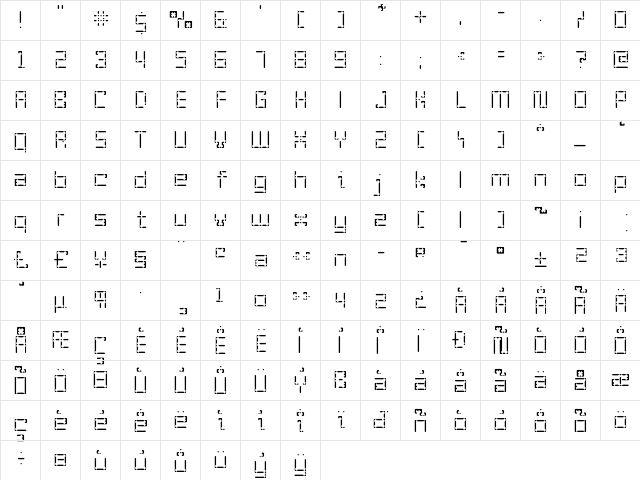
Enam ExtraLight
Design Context for Enam Typeface
Enam takes a measured approach to typography — its balanced proportions and neutral character make it a reliable workhorse for both digital and print work. The delicate stroke weight brings airiness and refinement to layouts.